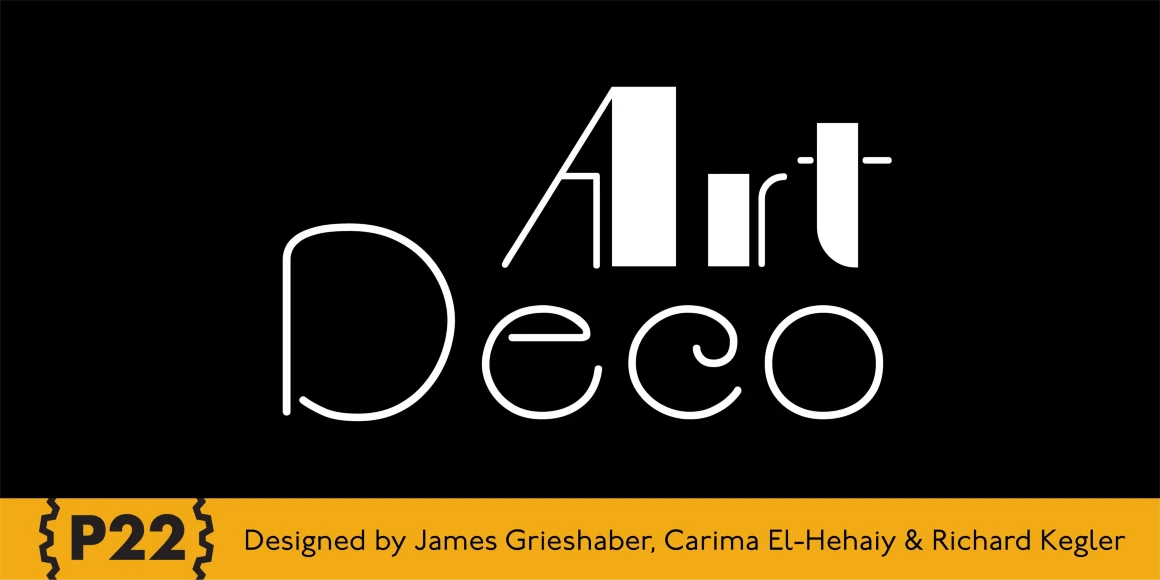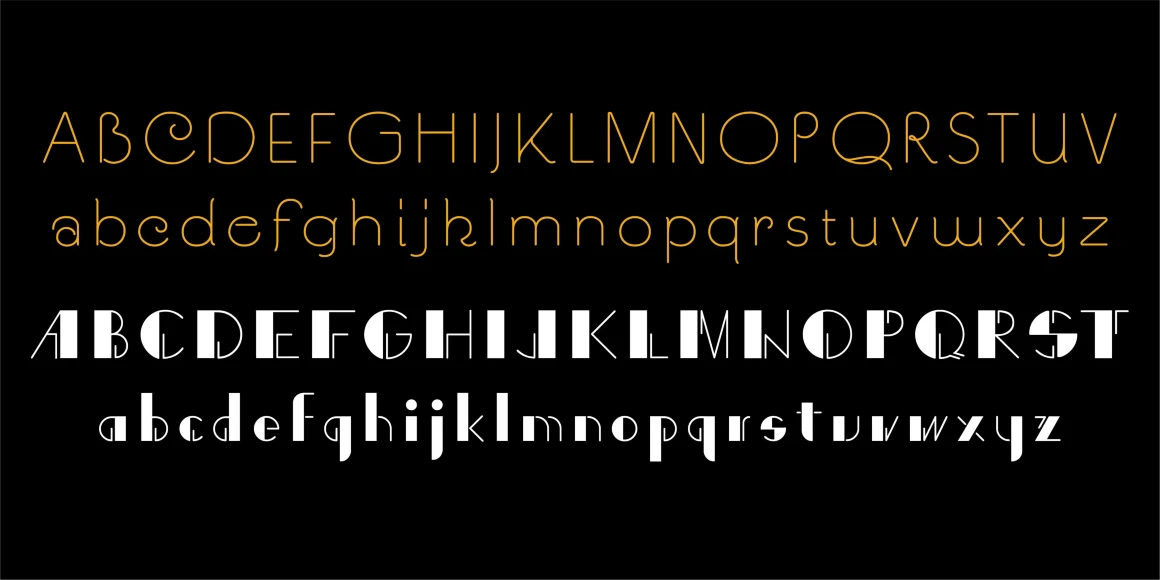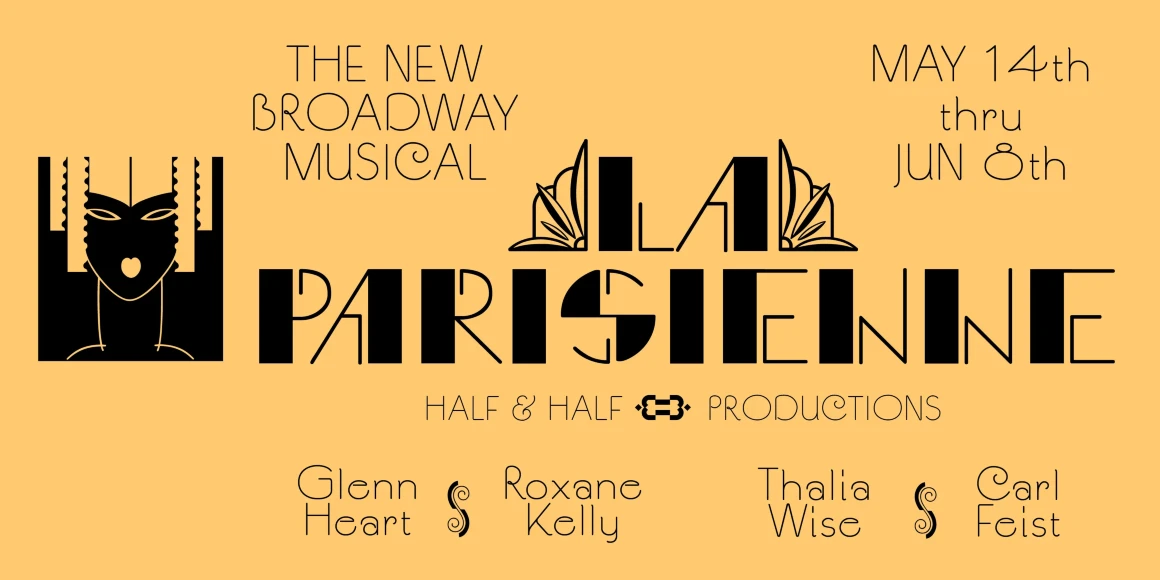
Art Deco
P22’s Art Deco font set shows the influence of a cross section of some of the various European and American Art Deco styles. Art Deco turned mundane objects into graceful, sensual works of art, with a nod towards the opulent and extreme. Art Deco sought to build upon the elements of Modern Art movements by focusing on the principal object and removing the extraneous elements found in the Victorian era and in Art Nouveau. The concept of “form following function” and the technological advances of the early 20th century played a very important role in defining the direction of Art Deco. Popular images included stylized people, svelte animals, tall buildings, sleek vehicles and exotic scenes. Art Deco typographic designers were also inspired by these diverse themes.
Designed by James Grieshaber, Carima El-Behairy & Richard Kegler
Art Deco Chic
Art Deco Display
Art Deco Extras